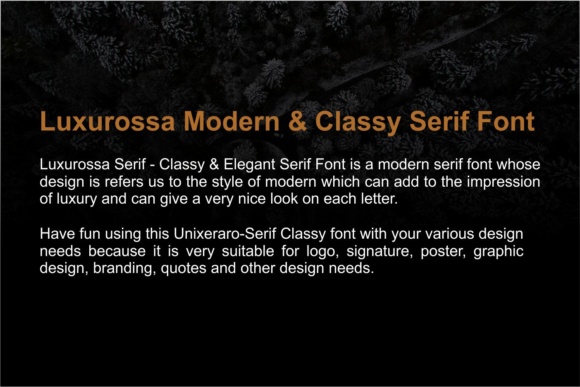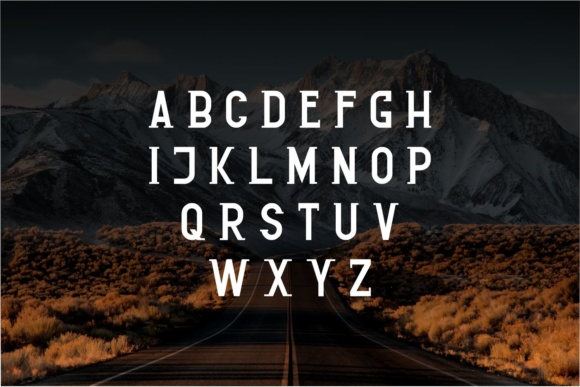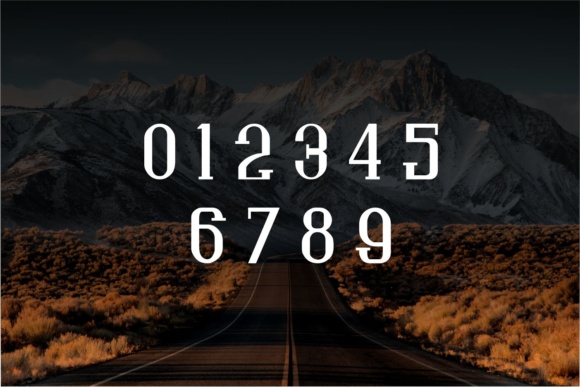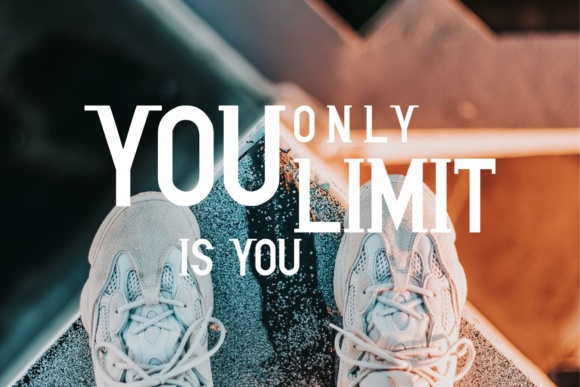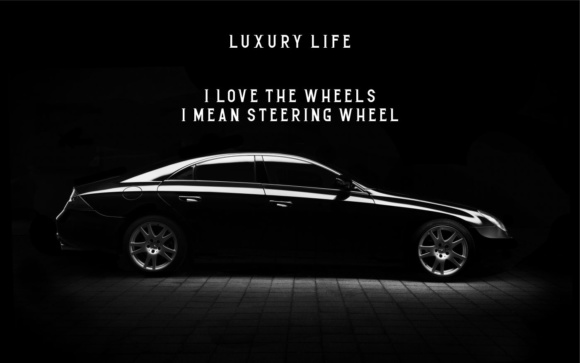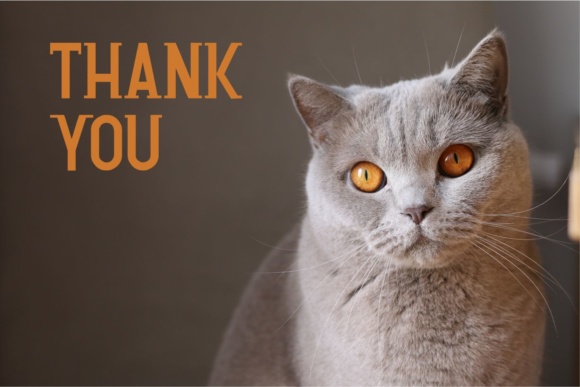
Introduction to Luxurossa Font Font
Fonts play a crucial role in design, and the Luxurossa Font font is a typeface that brings both character and versatility to any project. Whether you’re working on a branding project, a website, or a print design, the Luxurossa Font font offers a unique style that can elevate your work.
The Luxurossa is a classy and elegant serif font.
It has a clean and modern style which will a luxury impression to your designs .
Key Features of Luxurossa Font Font
Why Choose Luxurossa Font Font?
The Luxurossa Font font is more than just a typeface – it’s a design tool that helps you communicate your message with style and clarity. Its unique character set and versatile design make it suitable for a wide range of applications, from elegant invitations to bold headlines.
With its carefully crafted letterforms and balanced proportions, the Luxurossa Font font ensures readability and visual appeal across all mediums.
What makes Luxurossa Font font special?
The Luxurossa Font font stands out with its unique design, exceptional readability, and versatility across various design applications.